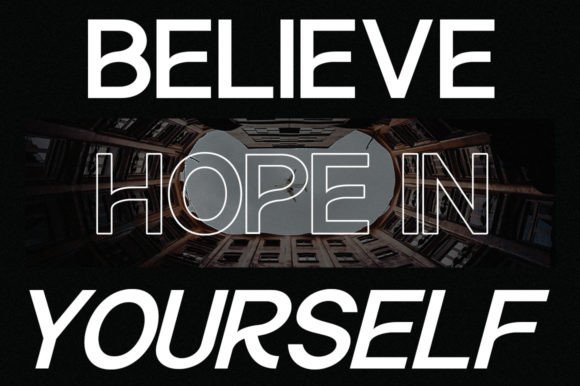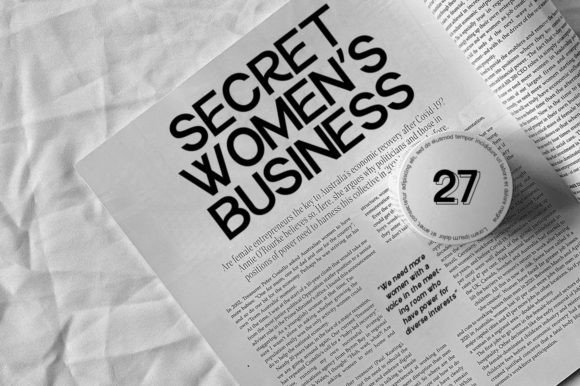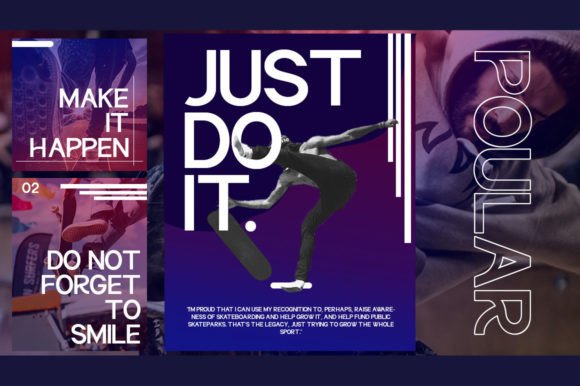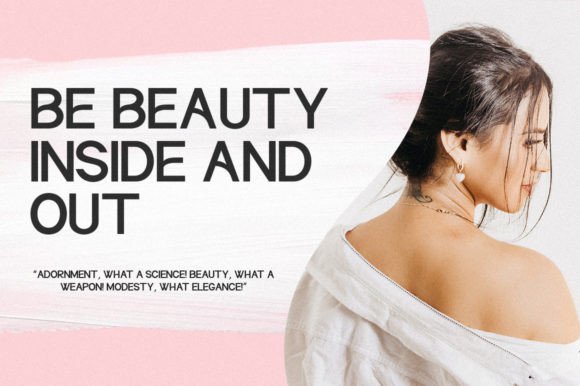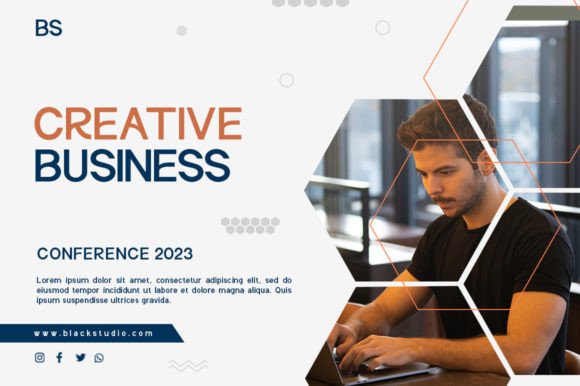
The Perfect Font for Your Creative Masterpiece
Have you ever stared at a blank page, feeling like your design isn’t quite coming together? The words seem to be stuck in a rut, and no matter how hard you try, you just can’t seem to capture the essence of your project. That’s where Brākė Font comes in – a game-changing typeface from Black Studio that’s about to revolutionize the way you approach typography.
Brākė Font is more than just a pretty face; it’s a powerful tool designed to help you create stunning, one-of-a-kind designs that truly reflect your vision. With its adaptable and contemporary aesthetic, Brākė Font offers endless possibilities for making your project titles shine – from fashion magazines to wedding invitations, and everything in between.
Brākė Font Key Features
- Font Family: Brākė is a sans-serif font family, designed to be highly legible and versatile.
- Unique Characteristics: Brākė Font features a unique blend of modern and minimalist design elements, with a focus on simplicity, clarity, and readability.
Brākė Font Review
Brākė Font is a unique and elegant font that can add a touch of sophistication to any design project. Here’s my honest review of this font.
Its fluid and natural flow makes it perfect for body text.
Brākė Font has a great legibility, making it suitable for longer blocks of text.
It comes in multiple weights, from light to bold, giving designers plenty of options for different design needs.
The font may not be the best choice for display headlines due to its relatively small x-height.
Some users may find the font too subtle, especially when used in smaller sizes.
The font family lacks a true italic style, which might limit its use in certain design contexts.
Brākė Font is a solid choice for designers looking for a clean and elegant font for body text. While it may not excel in display headlines, its versatility and legibility make it a great addition to any font library.
Getting the Most Out of Brākė Font
Brākė Font is a versatile and elegant font that can be used in various design projects. To get the most out of it, consider the following tips:
- Use Brākė Font for headings and titles to add a touch of sophistication.
- Pair Brākė Font with other elegant fonts for a harmonious design.
Brākė Font is ideal for:
Alternatives to Brākė Font
1. Inter Font
Inter Font is a modern sans-serif typeface designed by Rasmus Andersson. It’s suitable for a wide range of applications, including digital products, branding, and editorial content. Inter Font is a great alternative to Brākė Font when you need a clean, minimalist look with a focus on legibility.
Compared to Brākė Font, Inter Font has a more geometric and precise feel, making it ideal for digital interfaces and screens. While Brākė Font has a more organic and handwritten touch, Inter Font is more versatile and suitable for a broader range of design projects.
2. Public Sans
Public Sans is a sans-serif typeface designed by Tyler Lawson and released by the United States Government. It’s designed for use in digital products, particularly for government websites and applications. Public Sans is a great alternative to Brākė Font when you need a clean, professional look with a focus on readability.
Compared to Brākė Font, Public Sans has a more straightforward and utilitarian feel, making it ideal for official and corporate communications. While Brākė Font has a more creative and expressive touch, Public Sans is more formal and suitable for serious design projects.
Lato Font is a sans-serif typeface designed by Łukasz Dziedzic. It’s suitable for a wide range of applications, including digital products, branding, and editorial content. Lato Font is a great alternative to Brākė Font when you need a clean, modern look with a focus on elegance.